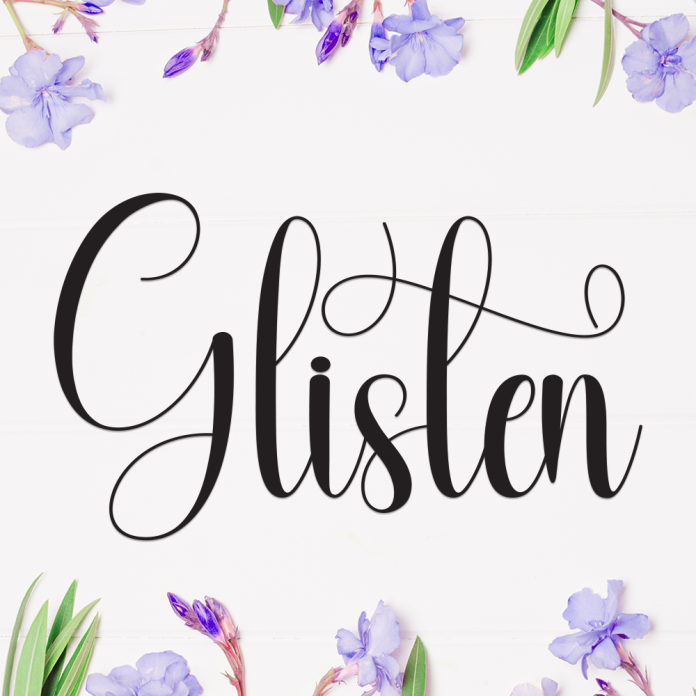
Glisten is a graceful and flowing handwriting font that shines with elegance and warmth. Each stroke mimics natural penmanship, giving your designs a personal, heartfelt, and sophisticated touch.
Perfect for wedding invitations, thank-you cards, personal branding, quotes, and feminine designs, Glisten brings charm and authenticity to every project.
Smooth and elegant handwritten strokes
Natural flow and beautiful ligatures
Uppercase & lowercase characters
Let your designs sparkle with the handwritten beauty of Glisten – where every letter tells a story.